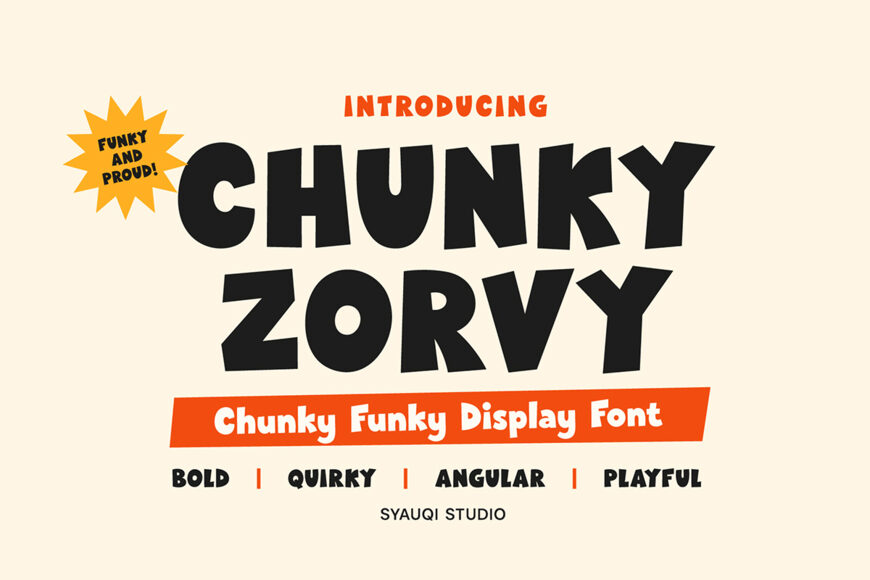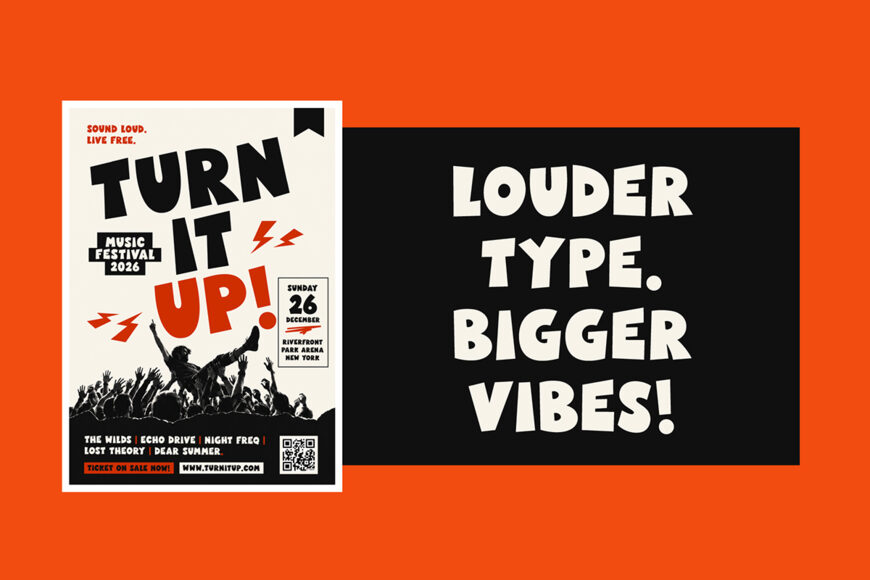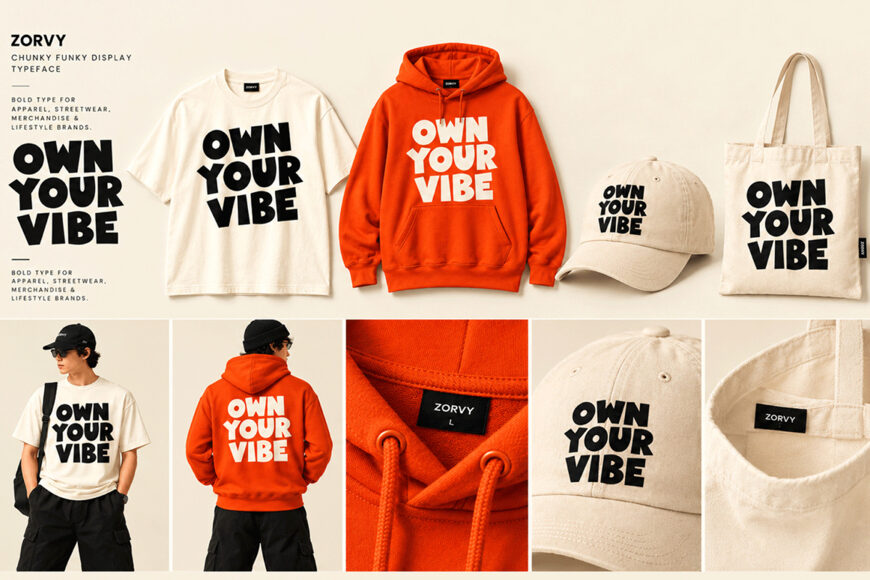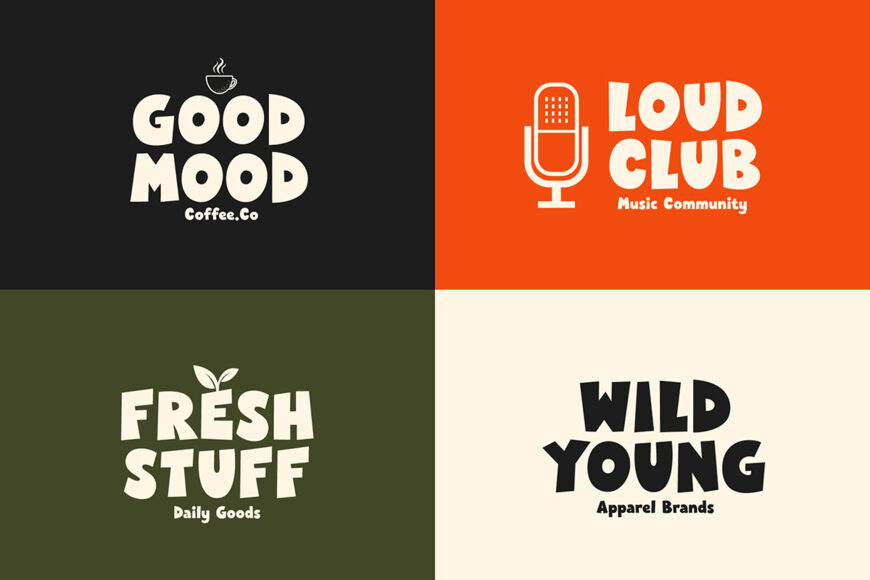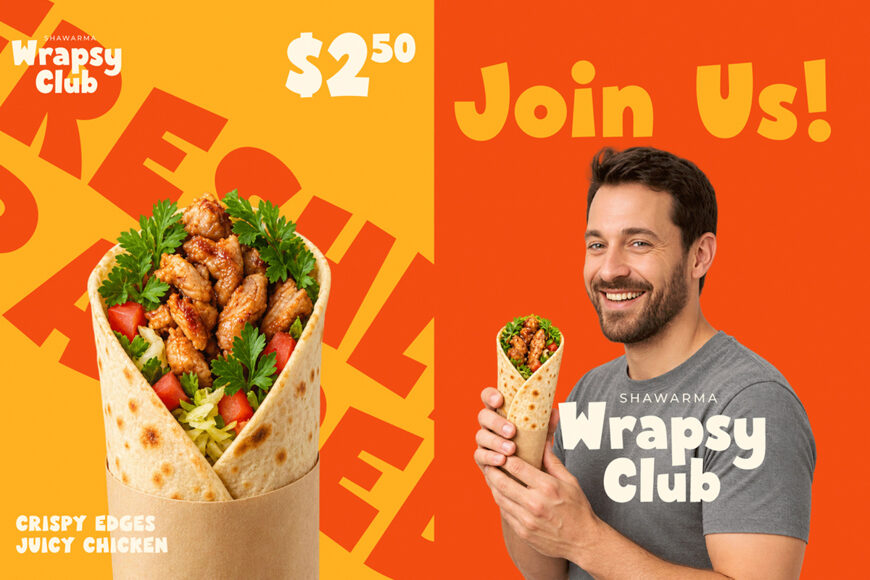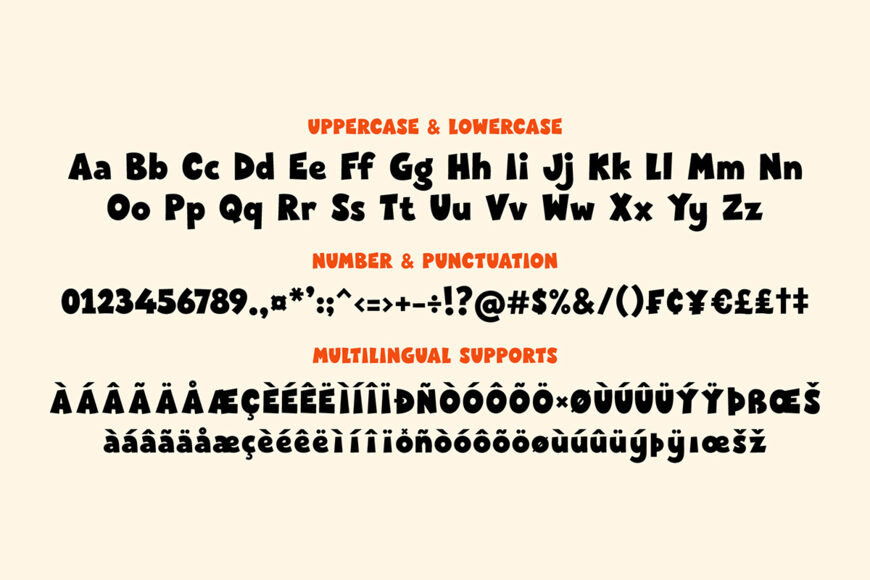
Chunky Zorvy is a bold and quirky chunky display typeface that brings playful energy, funky shapes, and expressive character to modern visual design.
Inspired by retro graphic aesthetics and reinterpreted with a contemporary attitude, Chunky Zorvy combines heavy letterforms, playful distortion, rounded and angular details, and an irregular rhythm to create typography that feels bold, fun, distinctive, and memorable.